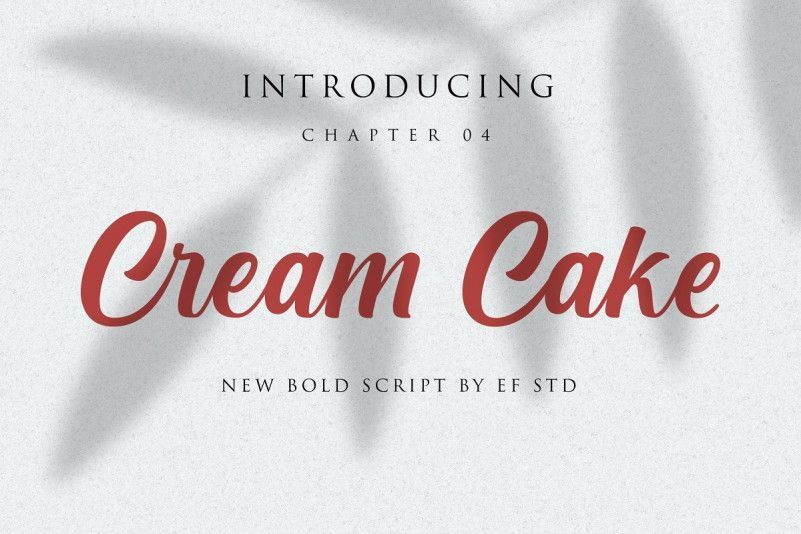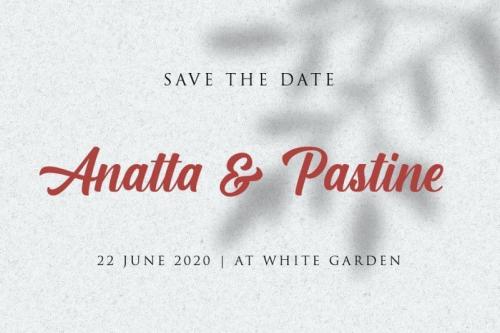
Cream Cake is a new bold script font that is very well designed by Ef Studio and has contextual alternates features so it can look like handwriting, perfect for your extraordinary projects.